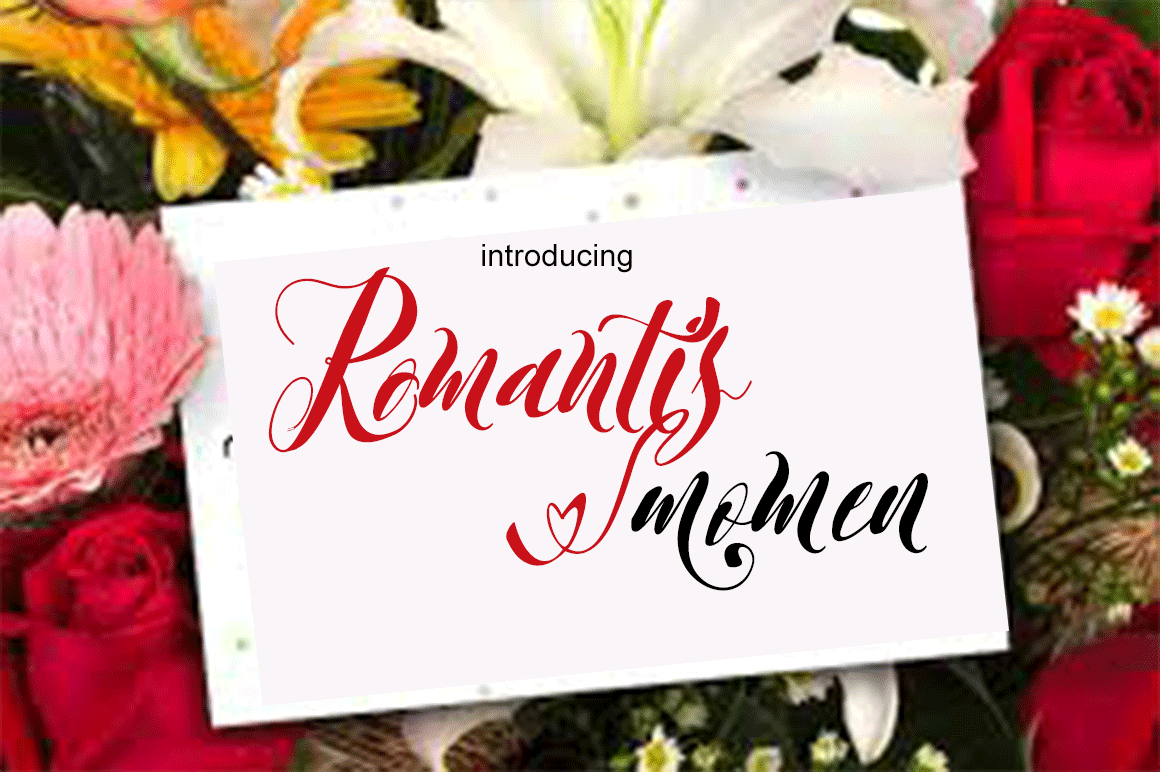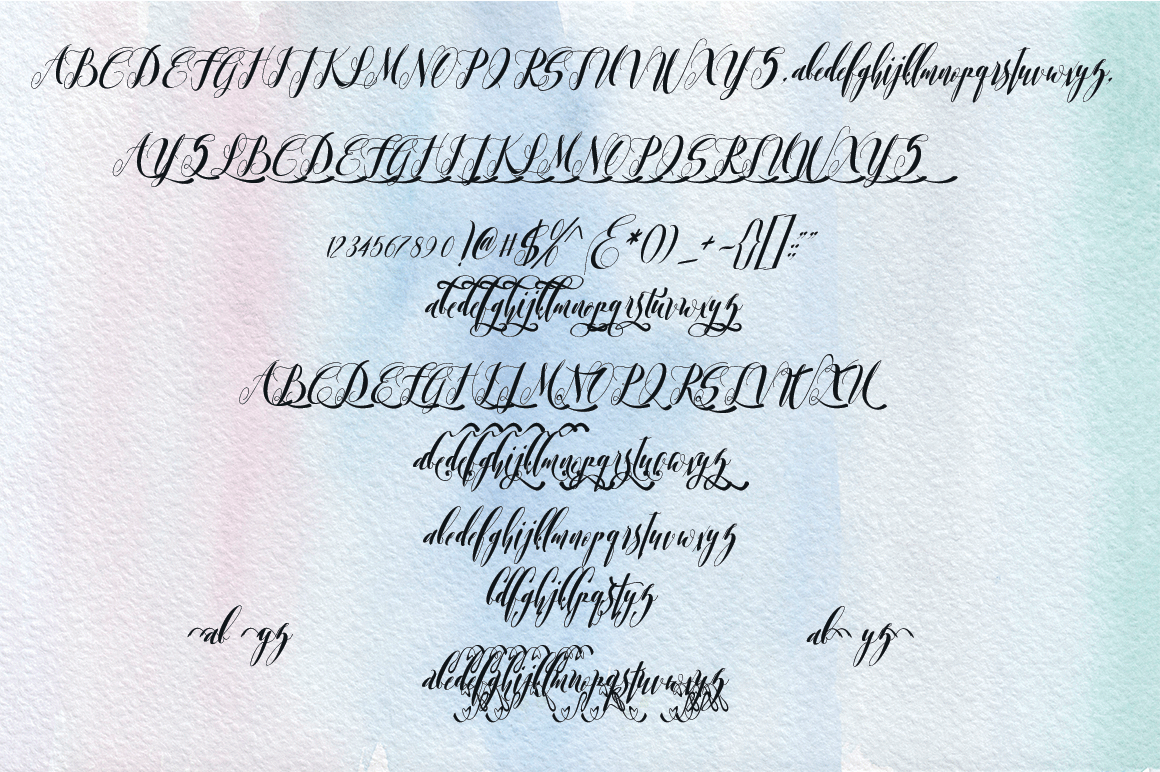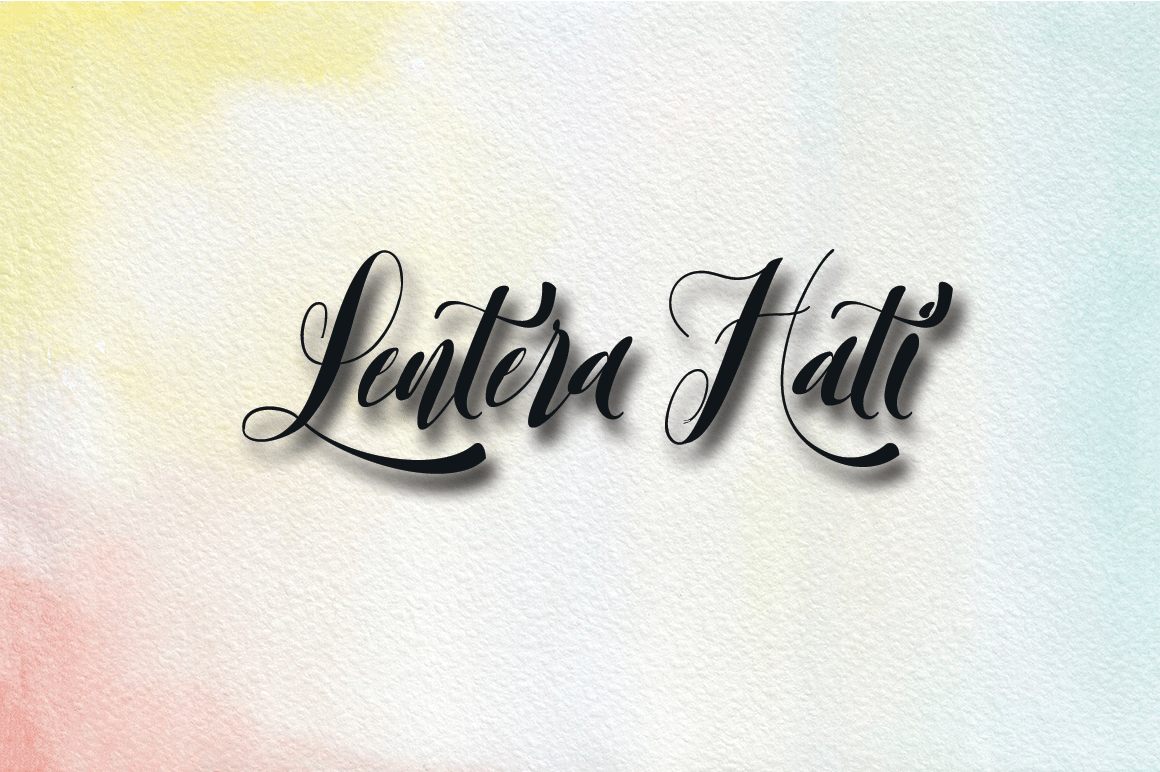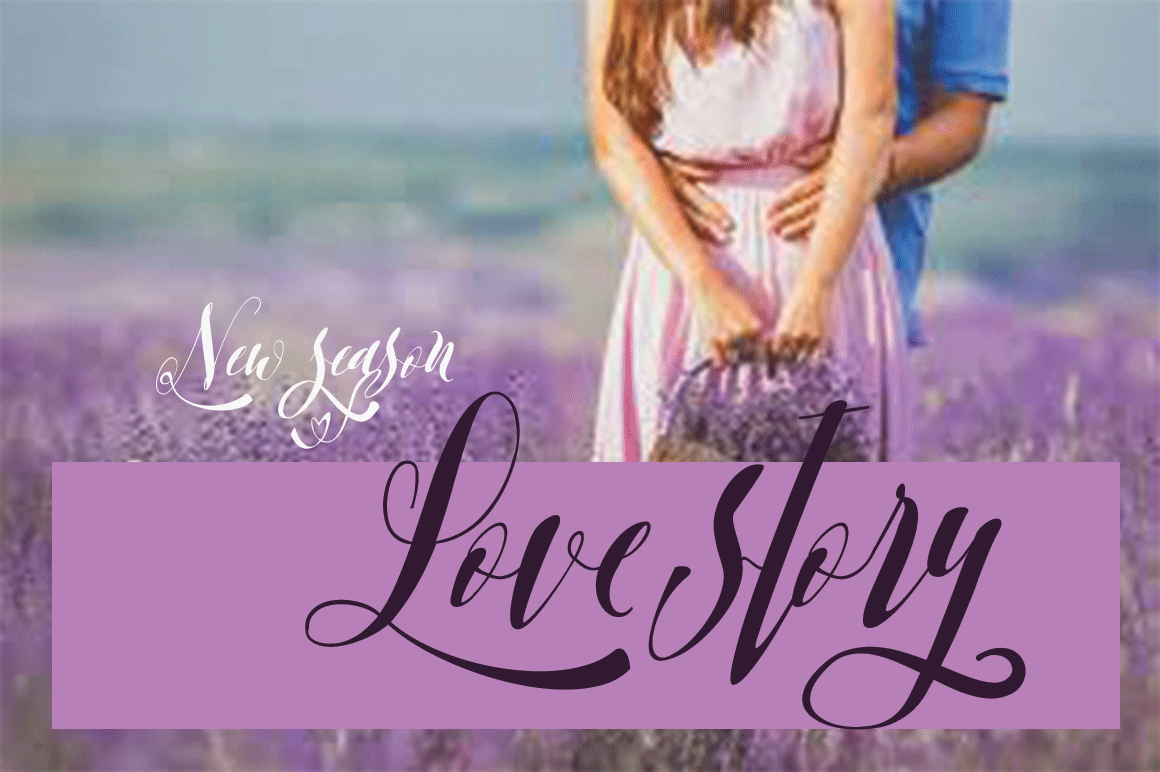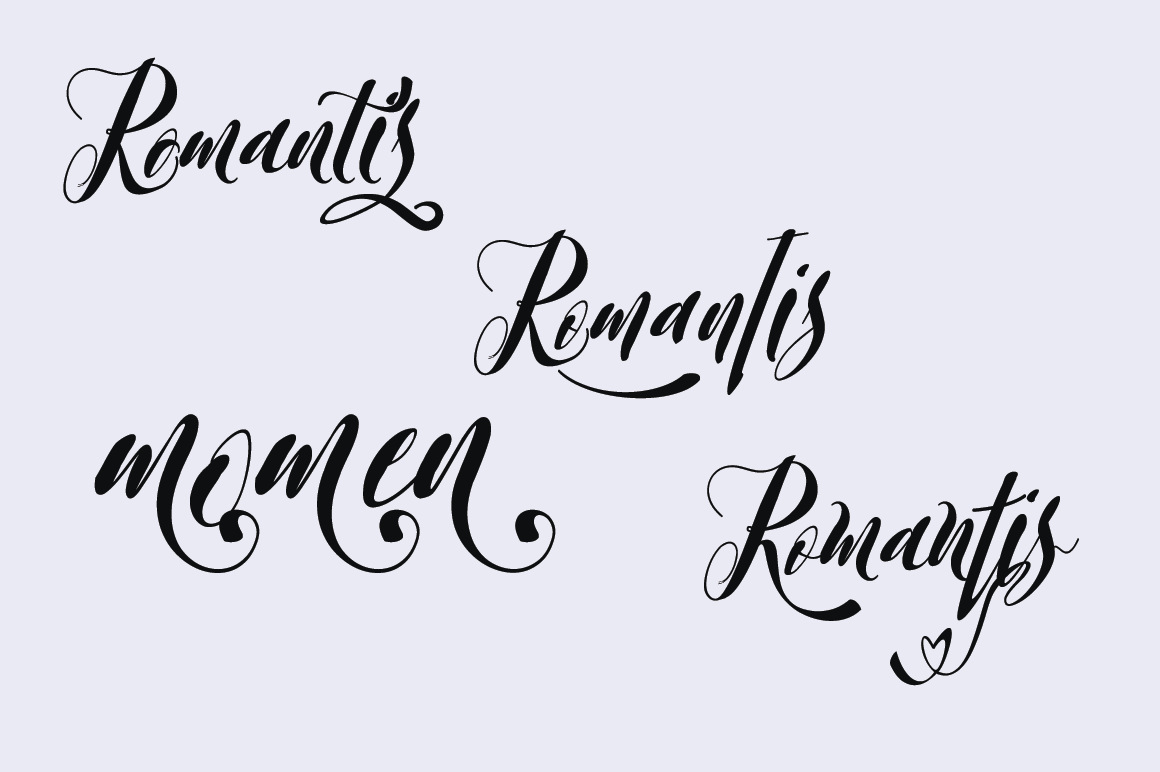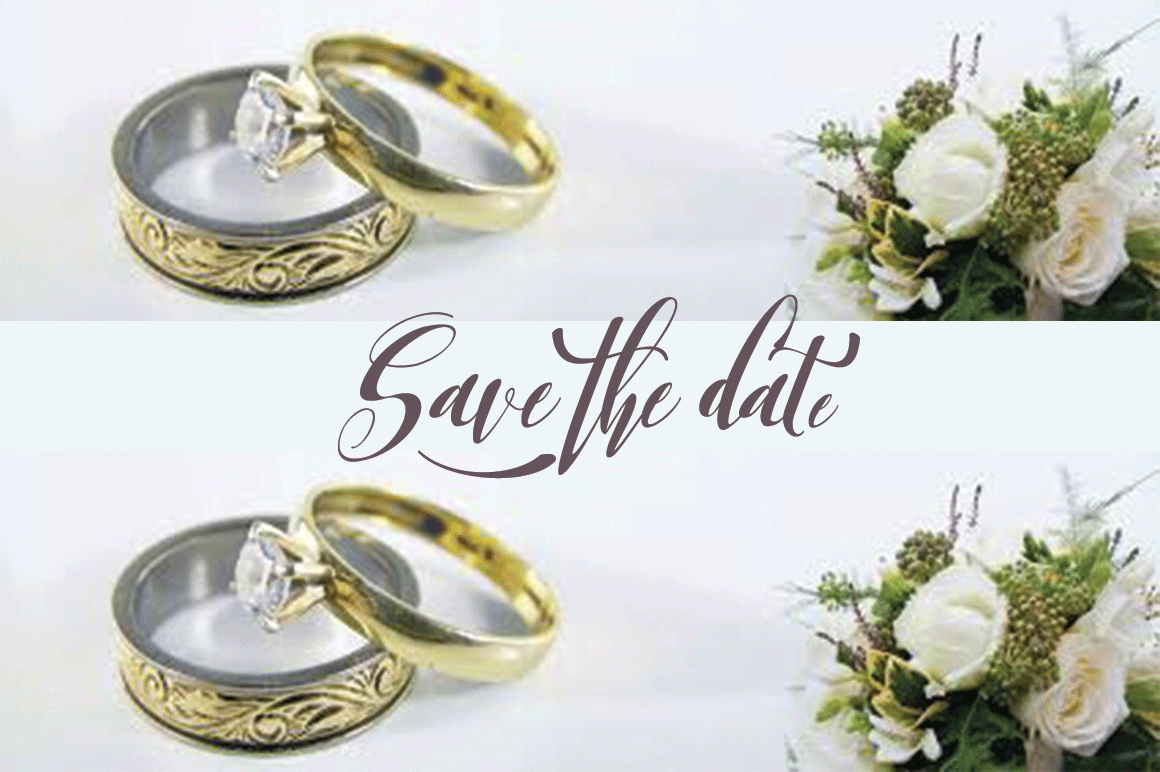
Romantis Momen Font
About Romantis Momen Font
Romantis Momen is a modern calligraphy font with classical influences. The Romantis font is packed with extra features and bonusses.